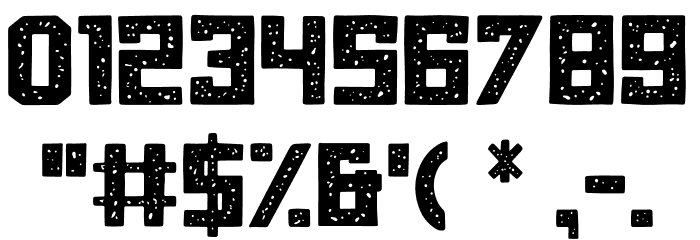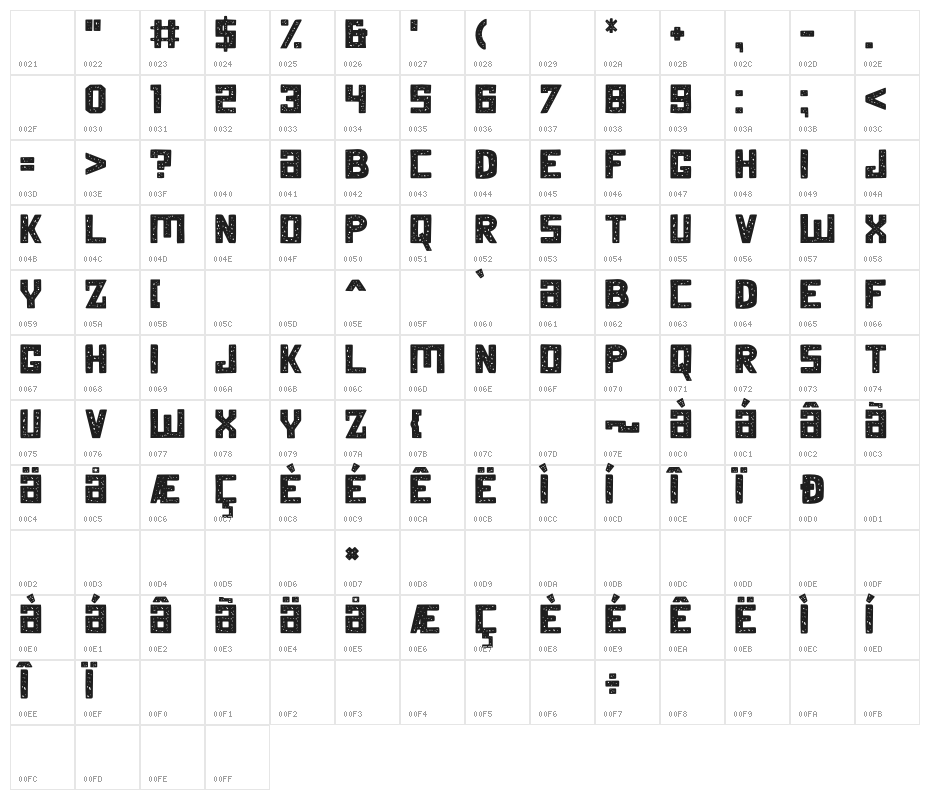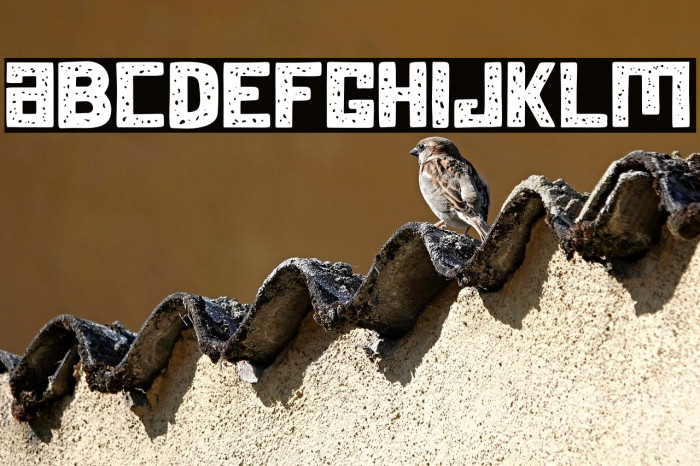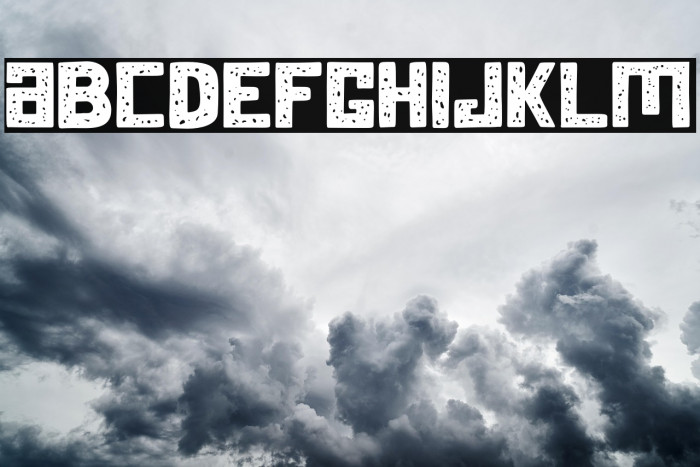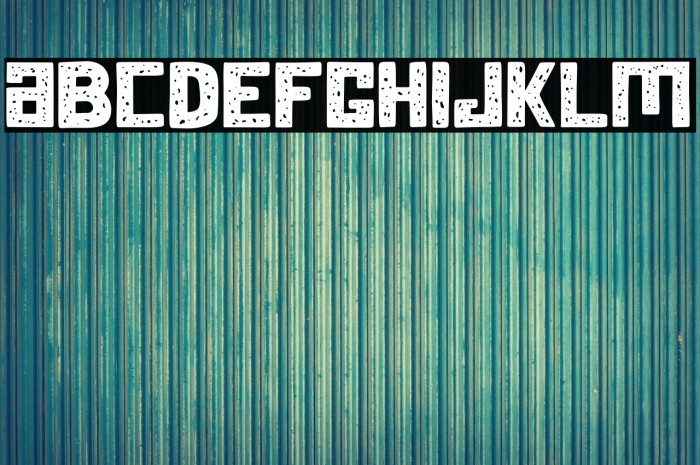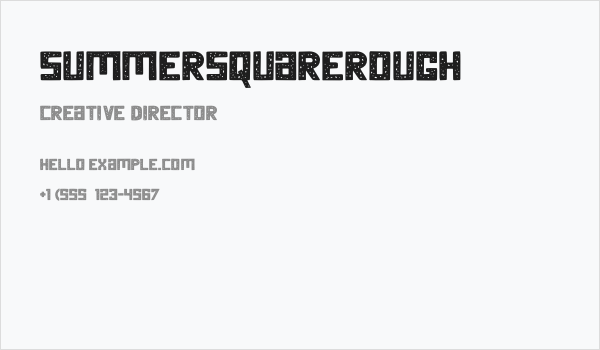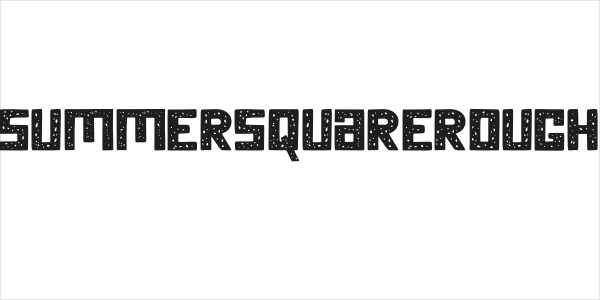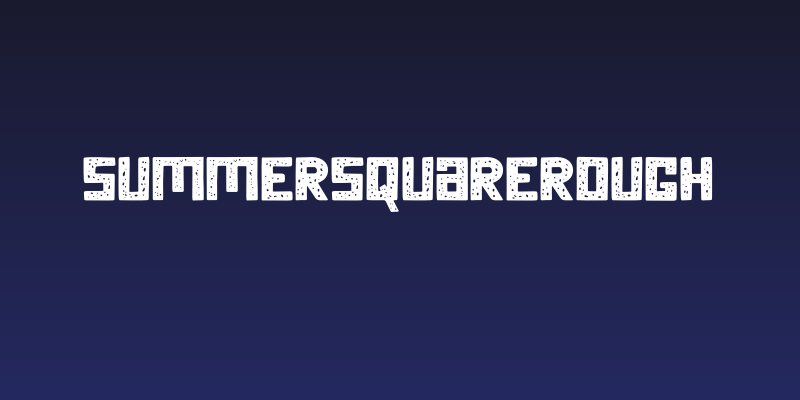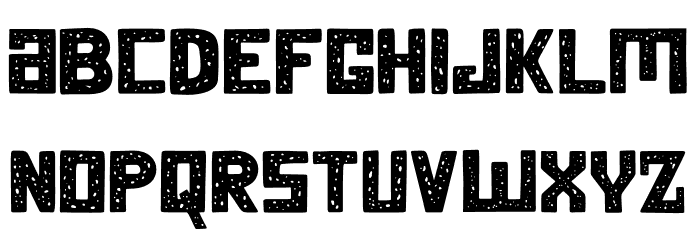
SummerSquareRough Font
SummerSquareRough Description
This font features a bold, blocky style with a rough, textured appearance reminiscent of a hand-drawn or stamped effect. Each character is filled with a pattern of small dots and irregularities, giving it a unique, distressed look. The uppercase and lowercase letters maintain a consistent height, contributing to a uniform and cohesive design. The numerals and special characters follow the same stylistic approach, ensuring a harmonious overall appearance. This font's distinctive style makes it ideal for projects that require a rustic or vintage aesthetic.